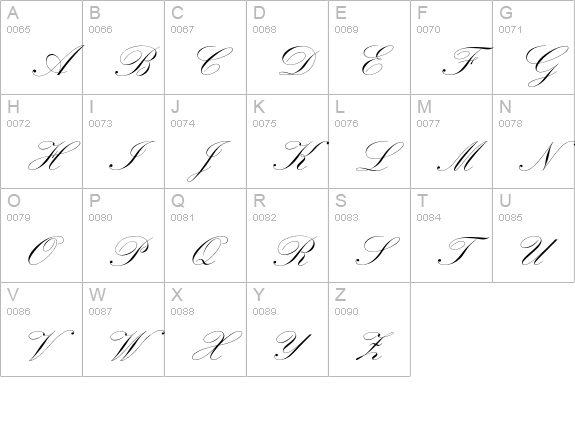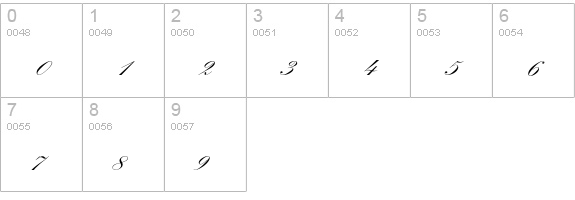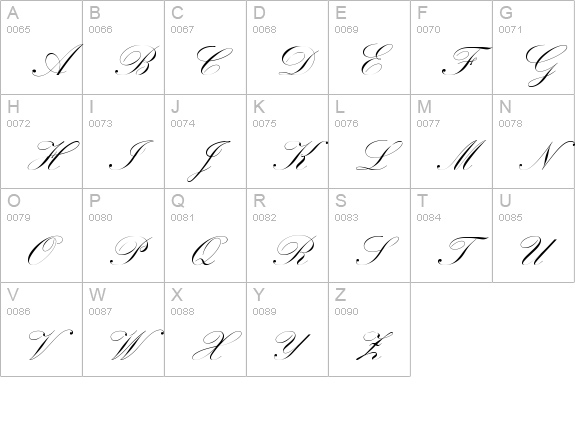
Kuenstler-Schreibschrift* Bold is a strong, high-contrast variant in the Kuenstler typeface family \xE2\x80\x94 well suited to headlines, attention-grabbing titles, and strong calls-to-action.
Kuenstler-Schreibschrift Bold font is a stunning typeface that exudes elegance and sophistication. Its bold and expressive strokes make it perfect for adding a touch of flair to any design project. Whether you're creating invitations, posters, or branding materials, this font will make your text stand out with its distinctive style. Best of all, Kuenstler-Schreibschrift Bold font is available for free download at FontsMarket.com. This means you can easily access and use this beautiful font in your projects without any cost. Don't miss out on the opportunity to elevate your designs with this unique and eye-catching typeface. Download Kuenstler-Schreibschrift Bold font today and unleash your creativity!